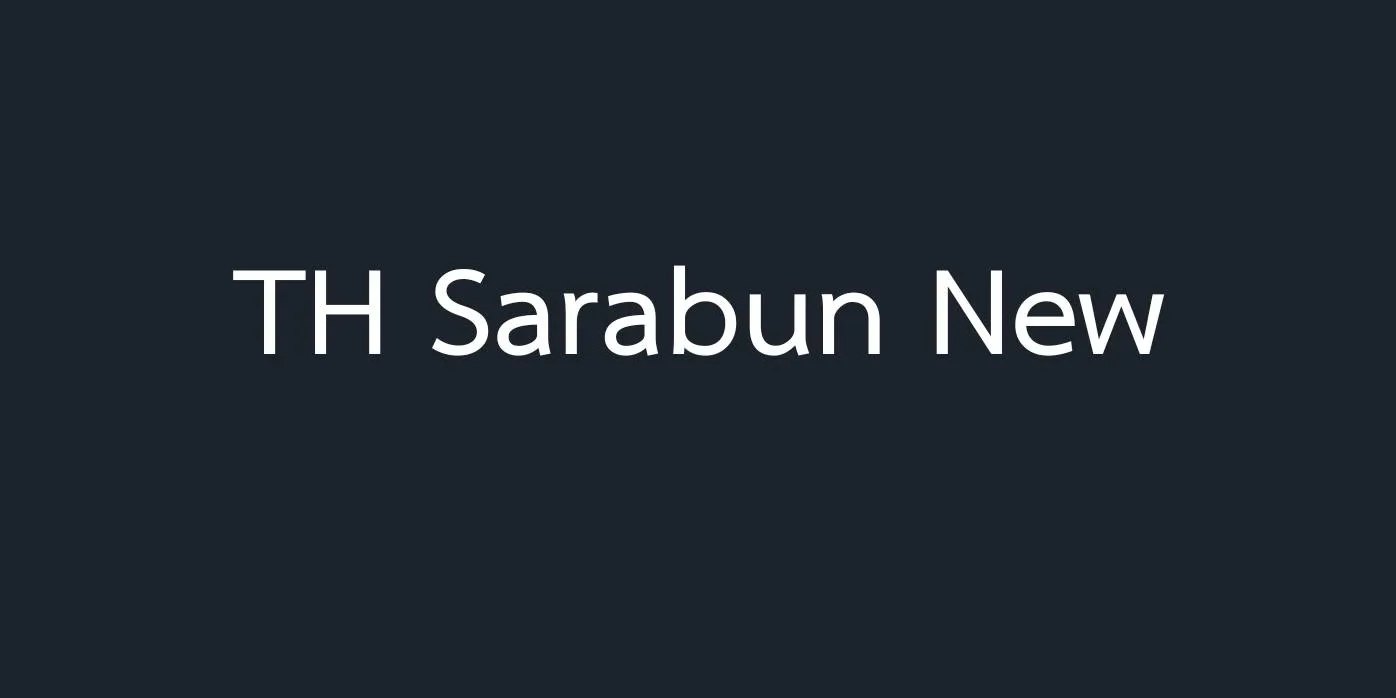
The Sarabun New Font
Now we talk about another amazing typeface The Sarabun New Font. This stunning Thai font was designed by Mr. Suppakit Chalermlab. To promote Thai culture and Language this font was created.
It has many features which make it unique and you can use it to design so many different projects. It contains 535 characters, 511 glyphs, and 1000 units per Em. The weight of the font is light and its width is medium normal. Languages supported by this typeface are Latin, Thai, Symbols, Greek, and Cyrillic.
This stunning font with high readability is used to promote the Thai language. It is a very famous font and can be used to design headlines with a very attractive look. All types of movies and TV shows Tiltes can also be made with it. The attractive design of this typeface can be used for branding and product packing also.
You can use it for both print and digital media. This typeface is a good option for advertisement purposes of any brand. It is also famous for being used in mobile applications. You can use it for making designs in Adobe Photoshop, CSS, and Canva.
The Sarabun new font was designed by Me. Suppakit Chalermlab. It was designed to promote the Thai language. Is The Sarabun New Font free for commercial use?
How many weights does The Sarabun New Font have? This typeface is a very unique font and it has four different weights Regular, Medium, Boldand and Extra Bold.